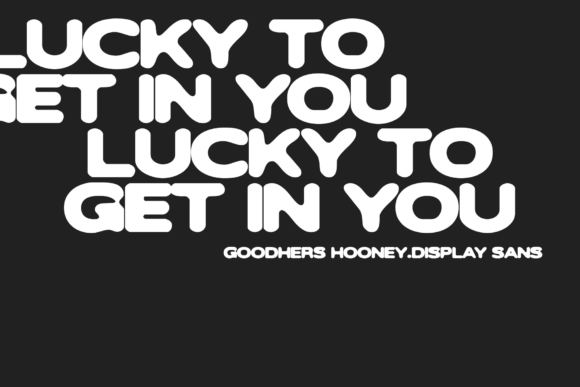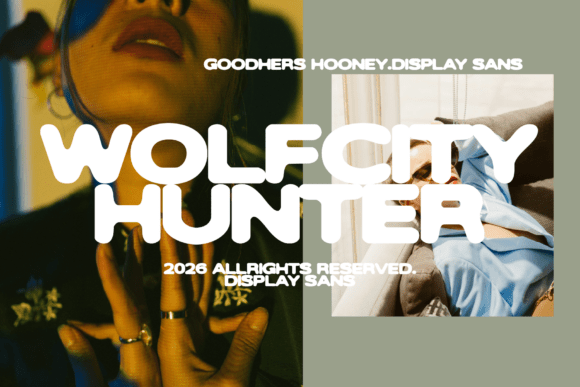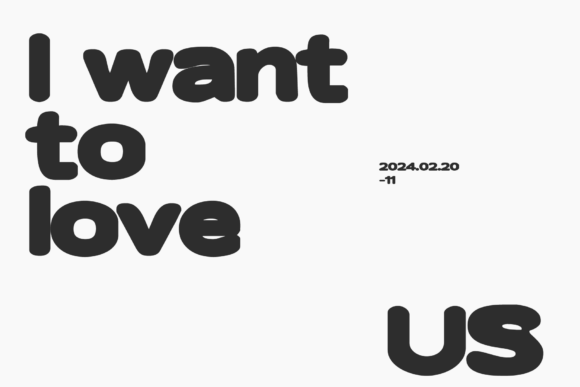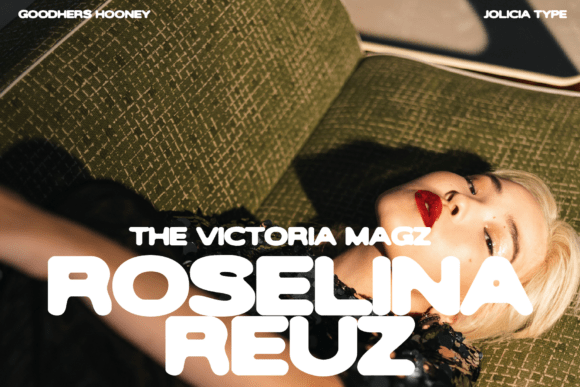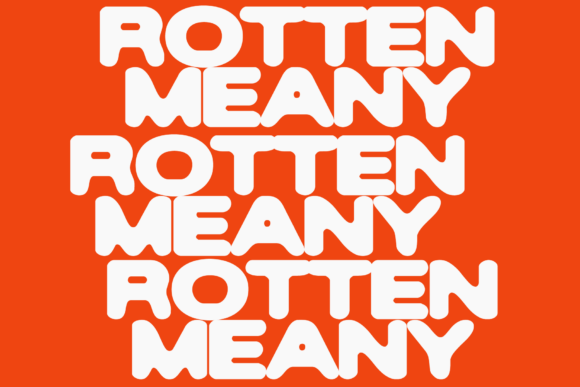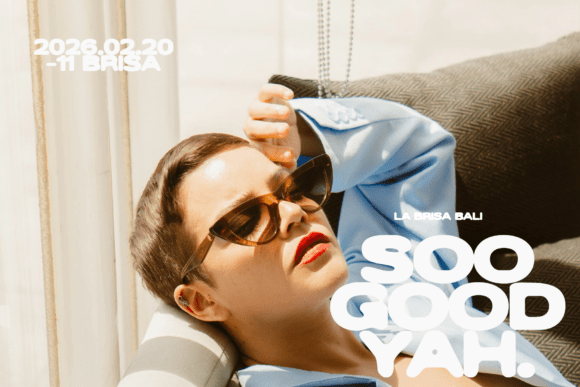
Step Back to the Groovy 70s with Goodhers Hooney
I’ll never forget the design project that led me to discover Goodhers Hooney. I was working on a retro-themed social media campaign for a client who wanted to evoke the vibrant energy of the 1970s. As I scrolled through font after font, nothing seemed to capture the essence of that iconic era – until I stumbled upon Goodhers Hooney. This bold, bubbly display sans-serif instantly transported me to a world of disco balls, bell-bottom jeans, and vintage posters. I knew right then and there that it was the perfect fit for my project.
An Honest Review of Goodhers Hooney
- ✨ Ultra-thick strokes that scream retro charm
- ✅ Soft, pillowy terminals that add a touch of whimsy
- 🎉 Loud and fun personality that’s perfect for high-impact designs
- 🔥 Undeniably stylish and on-trend for modern-nostalgic branding
While Goodhers Hooney is an amazing font, there are a few things to keep in mind:
- ⚠️ Legibility at small sizes: Due to its ultra-thick strokes, Goodhers Hooney can become difficult to read at smaller font sizes. Use it for headlines or titles, and consider a complementary font for body text.
- 🤔 Limited versatility: While Goodhers Hooney is perfect for display purposes, it may not be the best choice for longer blocks of text or more formal designs.
Goodhers Hooney was inspired by the retro pop culture of the 1970s – think vintage posters, disco balls, and bell-bottom jeans. The font’s designer wanted to capture the essence of that iconic era and bring it back to life in a modern, bold, and bubbly way. With Goodhers Hooney, you can add a touch of vintage “cool” to your designs and make them truly unforgettable.
Q: Is Goodhers Hooney suitable for body text?
A: Due to its ultra-thick strokes and soft terminals, Goodhers Hooney is best suited for display purposes, such as headlines or titles. Consider using a complementary font for body text.